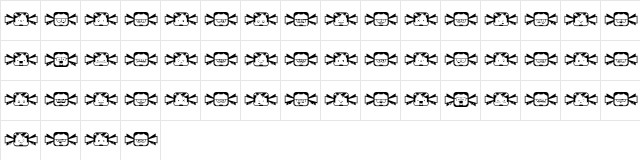
Negobom Regular Font Preview
Negobom Regular
Negobom Regular Font Details
| Foundry | Felipe Caro |
| Designer | Felipe Caro |
Design Context for Negobom Typeface
Negobom is a composed and adaptable typeface that performs quietly and consistently across a wide range of design contexts.